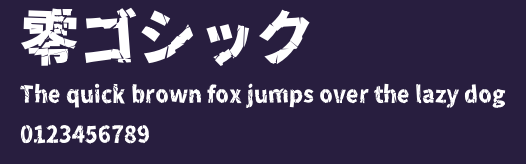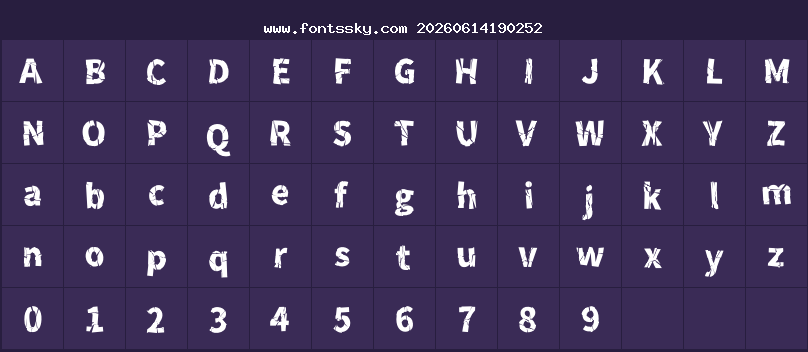
零ゴシック Preview
• Font Name: 零ゴシック
• Font ID: 零ゴシック
• Full Font Name: 零ゴシック
• PostScript Name: ZeroGothic
About 零ゴシック.otf
零ゴシック.otf is a modern, elegant sans-serif font designed for ultimate readability and visual harmony. Perfect for branding, headlines, web design, and print materials.